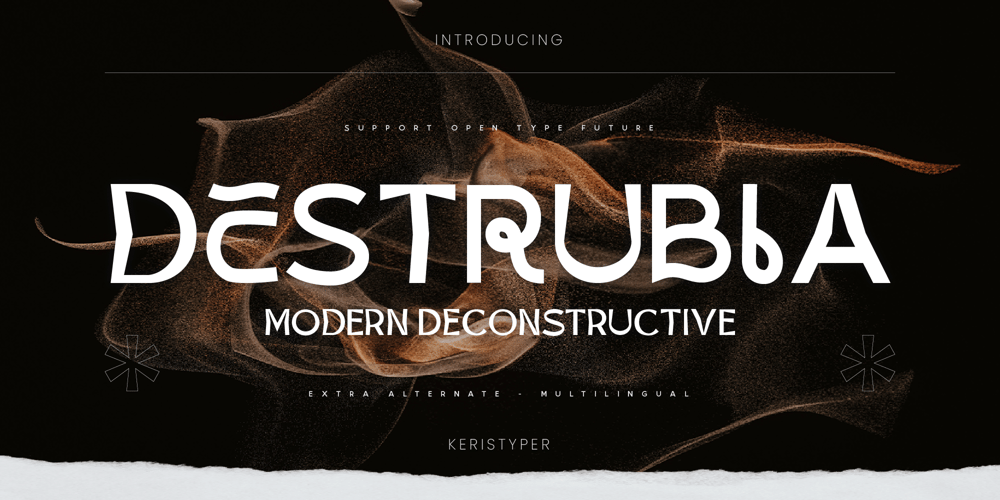
Destrubia Font Family was designed by Tezar Tantular and published by Keristyper Studio. Destrubia contains 1 styles and family package options. The Destrubia is made with the concept of a modern contemporary font display that gives a unique impression because it has a curvy and distortion shape. This font is good for logo design, Social media, Movie Titles, Books Titles, short text even long text letters, and good for your secondary text font with the script, sans, or serif.Featured: Standard Uppercase & Lowercase Numeral & Punctuation Multilingual : ä ö ü Ä Ö Ü ß ¿ ¡ Alternate & Ligature PUA encoded We recommend programs that support the OpenType feature and the Glyphs panel such as Adobe applications or Corel Draw. so you can use all the variations of the glyphs.Hope you enjoy our fonts!